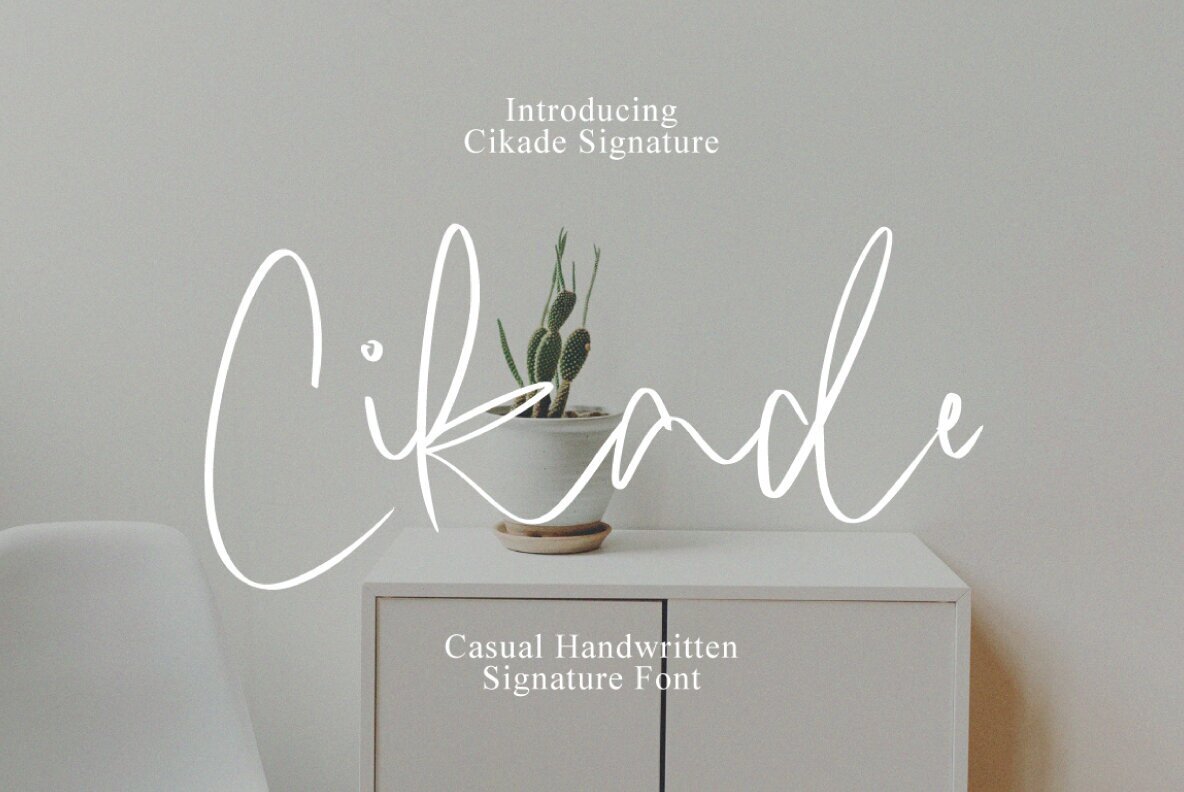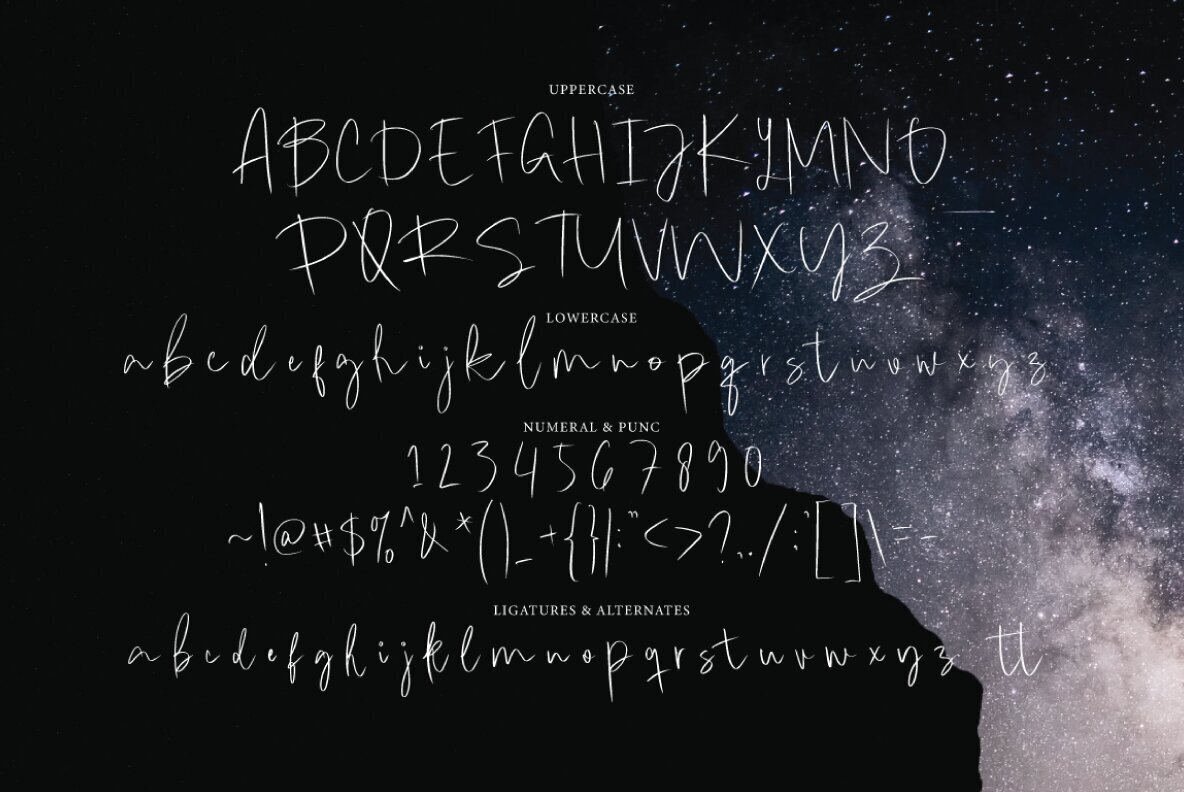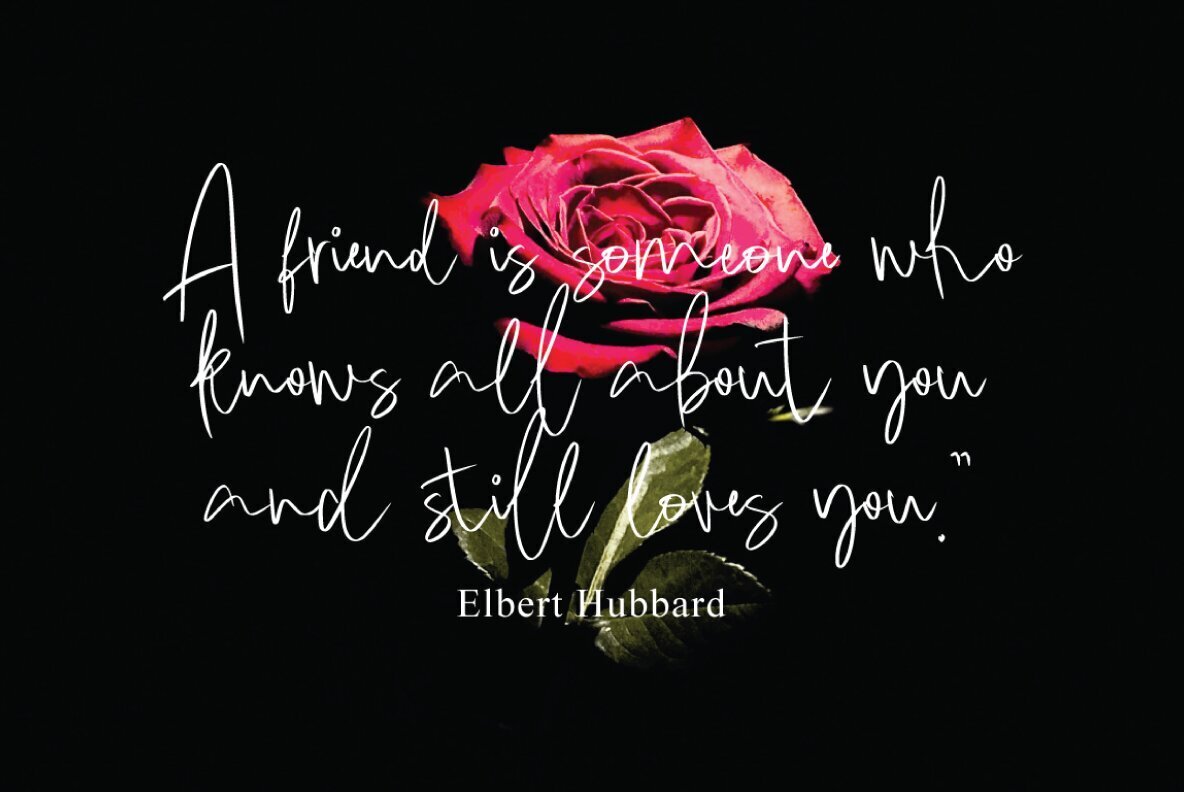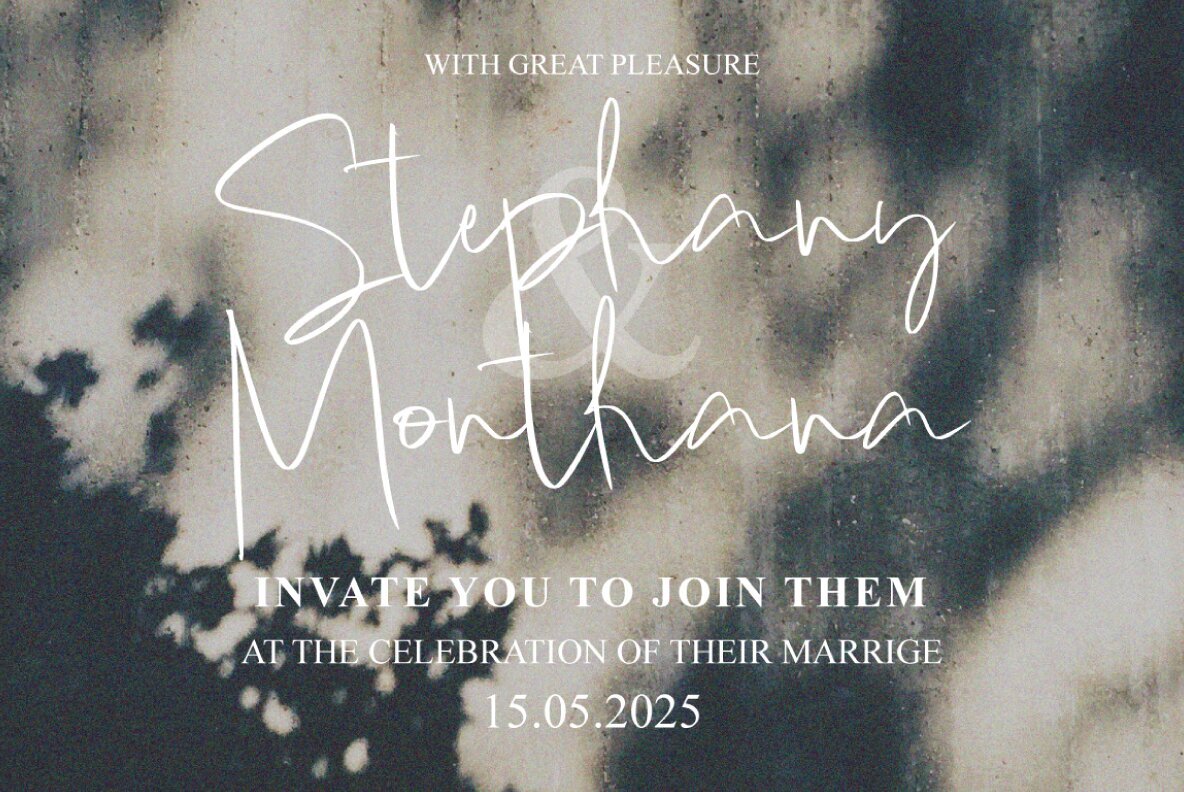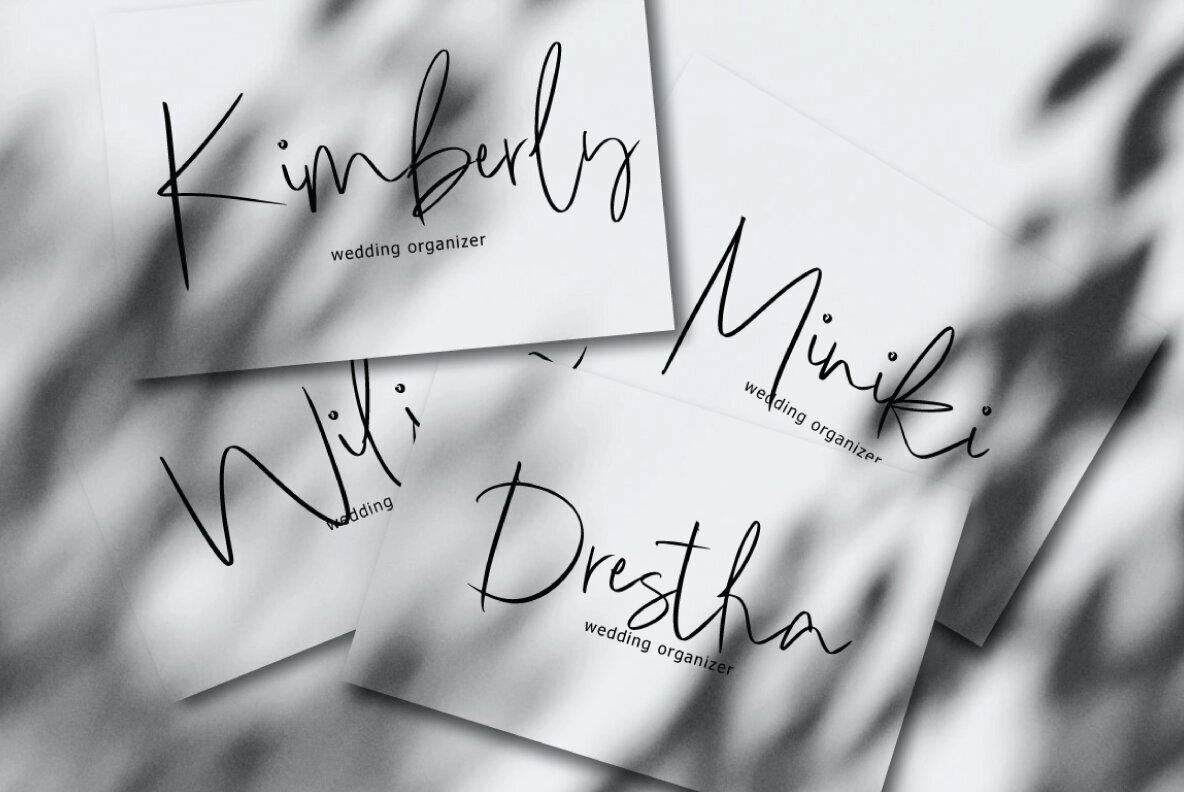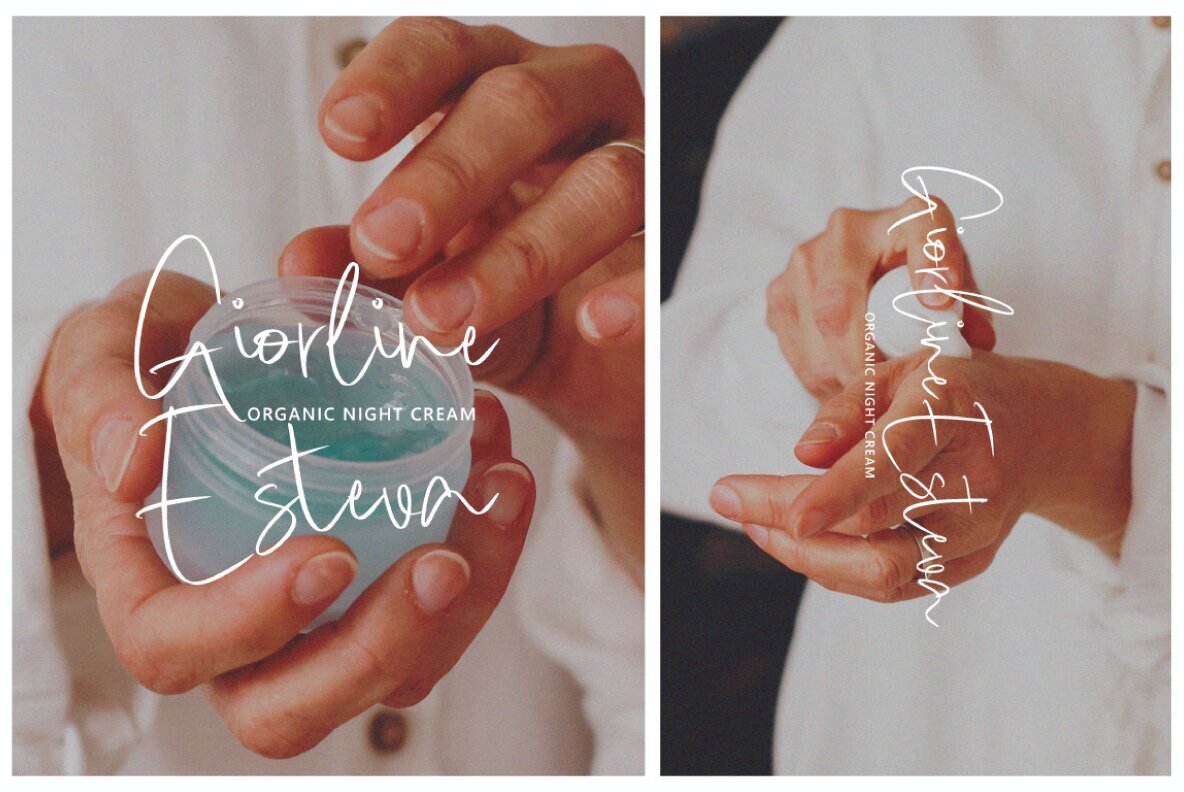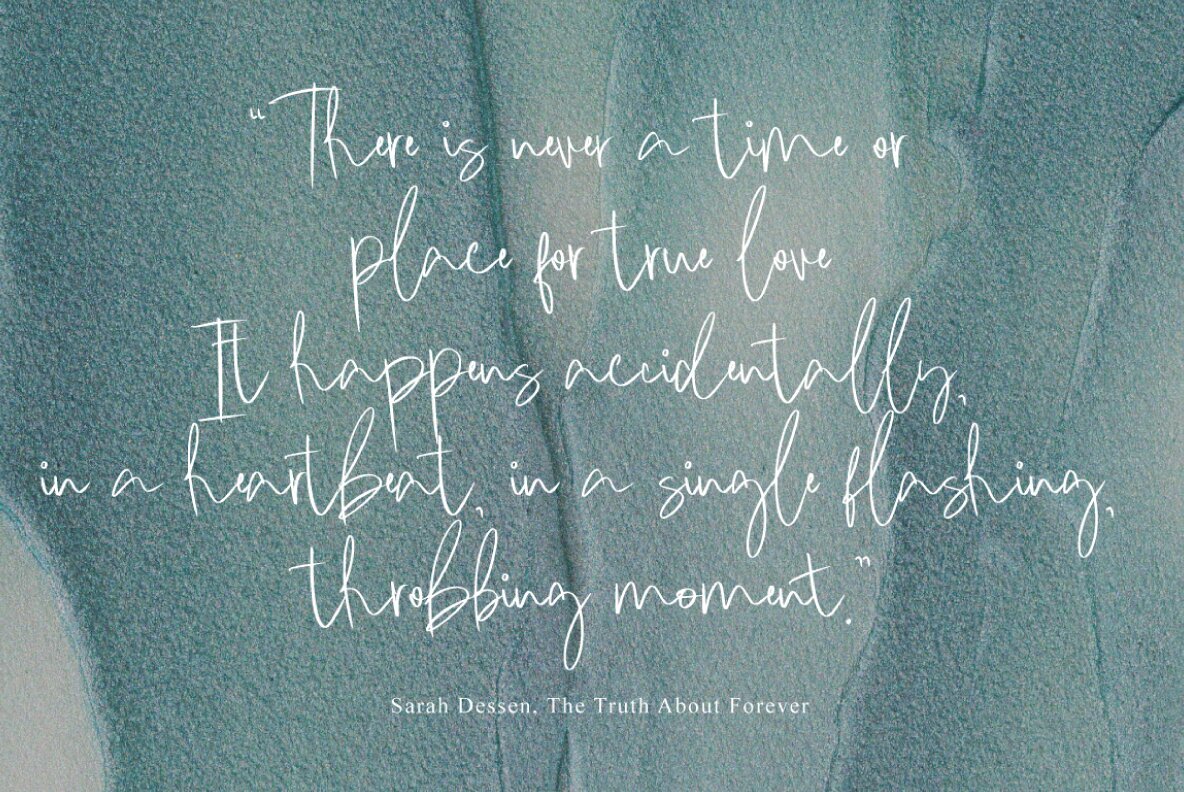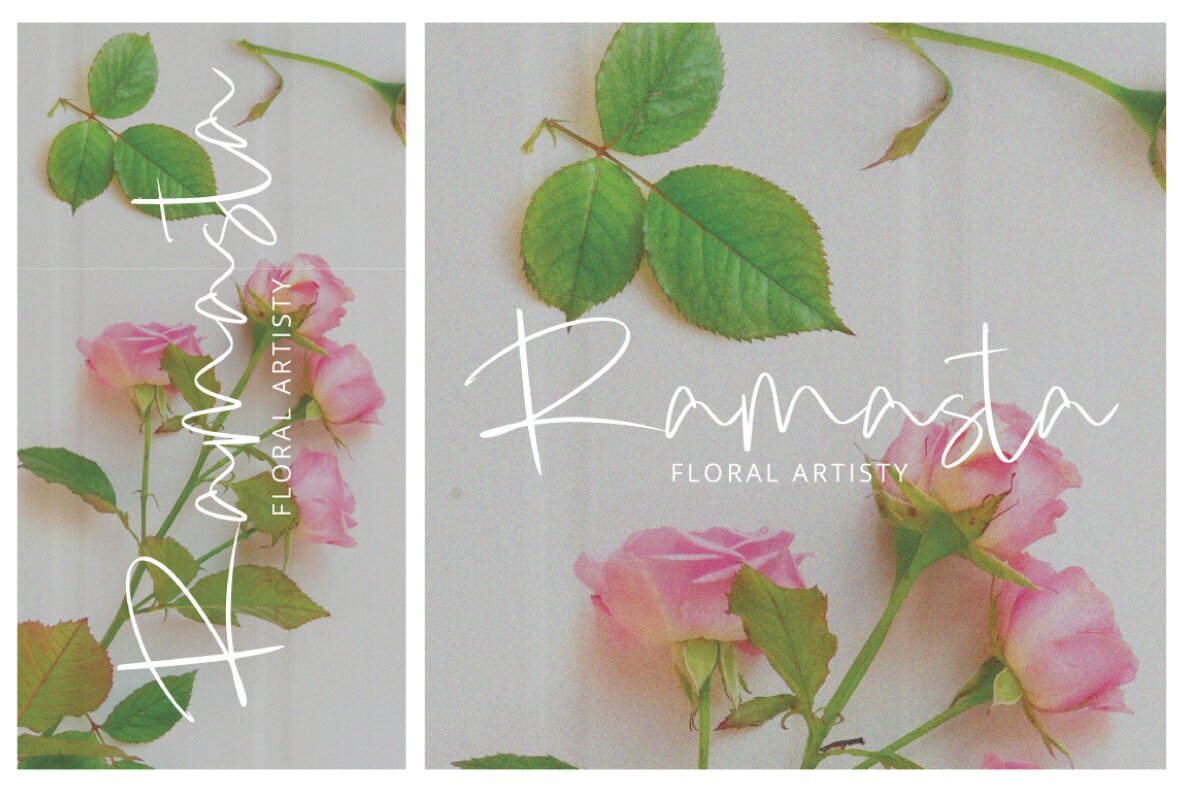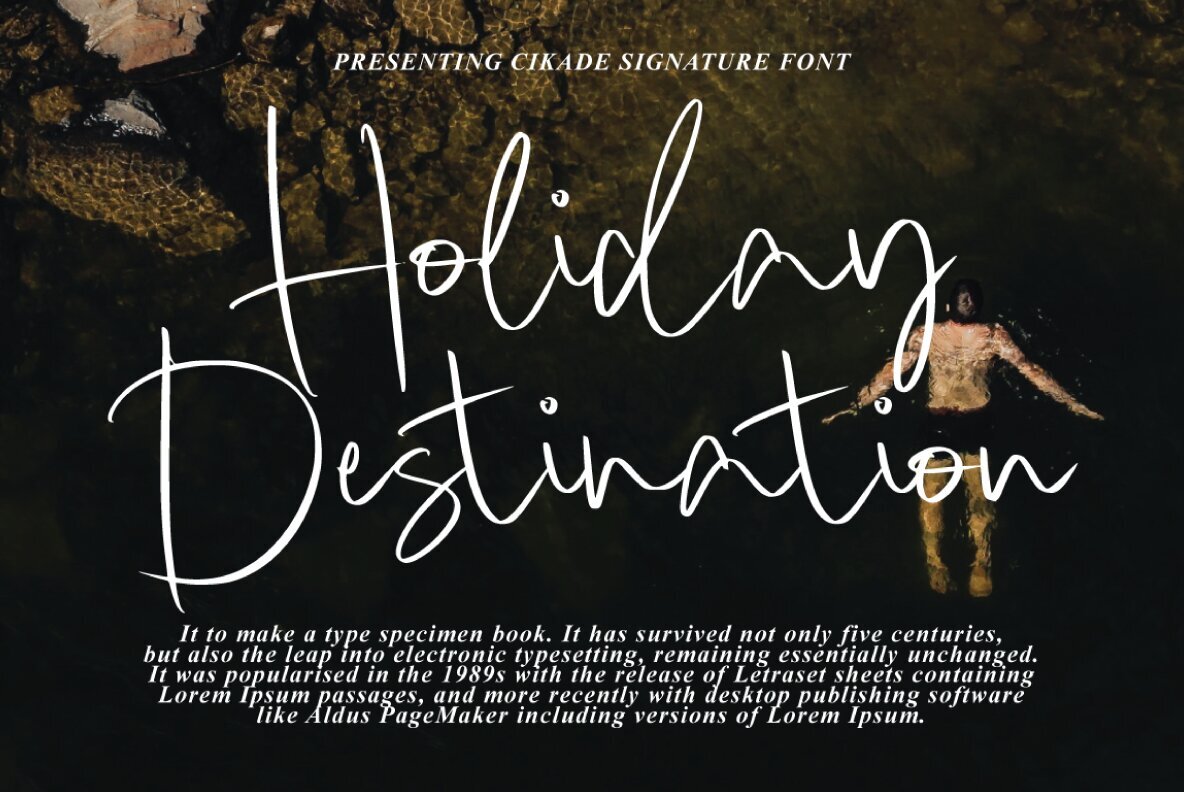
Cikade Font
Cikade Signature Regular
The Cikade Signature font from Executype Studio offers a handmade signature style with decorative characters and a lively, dancing baseline. This visually appealing typeface is perfect for applications on greeting cards, branding materials, business cards, quotes, posters, and more. It features over 200 glyphs, intricately crafted for designers who value authenticity and flair in their typography choice. With OpenType features that are readily accessible in design programs such as Adobe Illustrator, Adobe InDesign, and more, this font capitalizes on flexibility and comprehensiveness. All alternate characters are accessible via PUA Unicode, making it an excellent choice for craftspeople and designers using platforms like Font Book (Mac) and Character Map (Windows).Cikade Signature Typeface